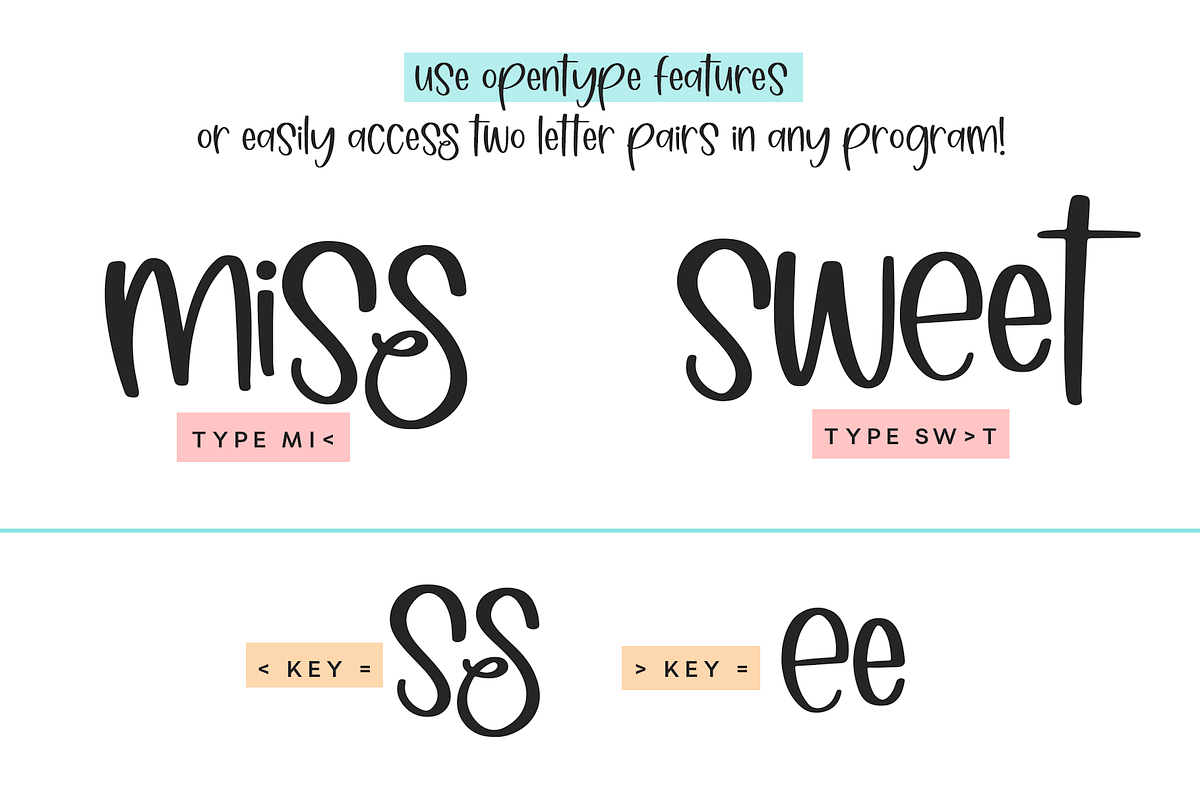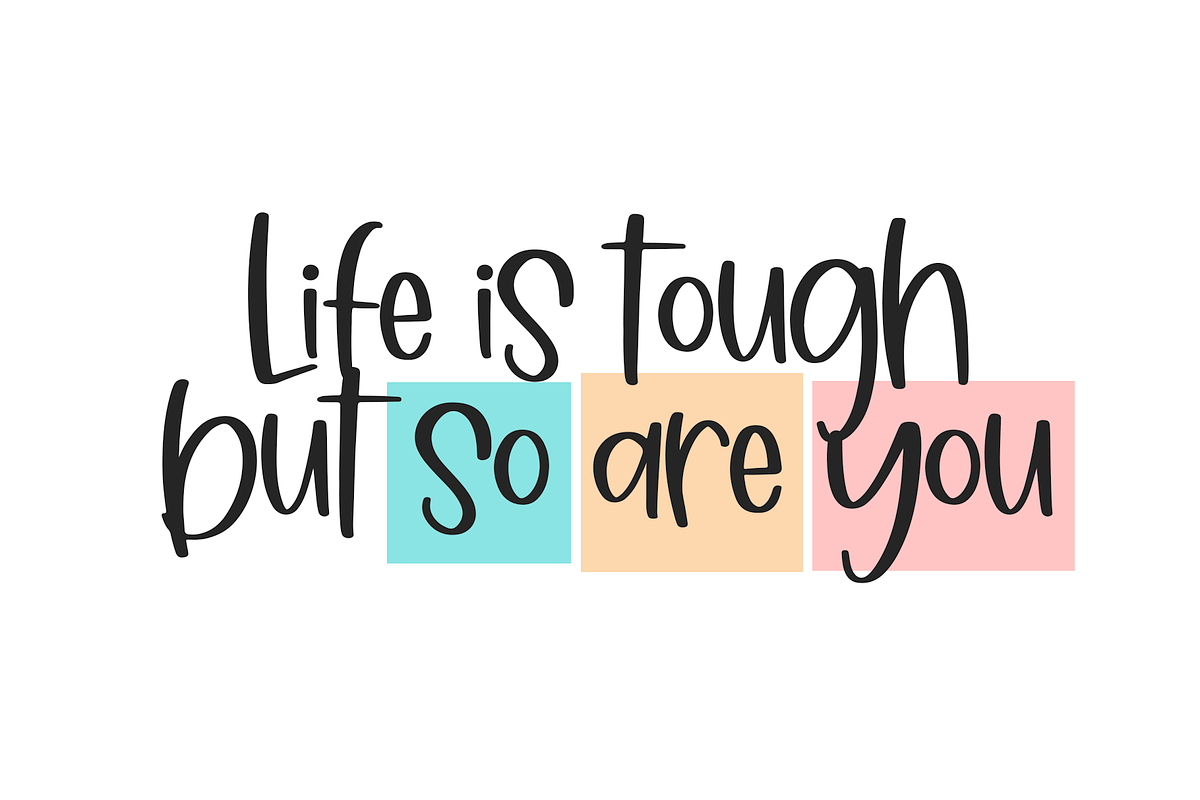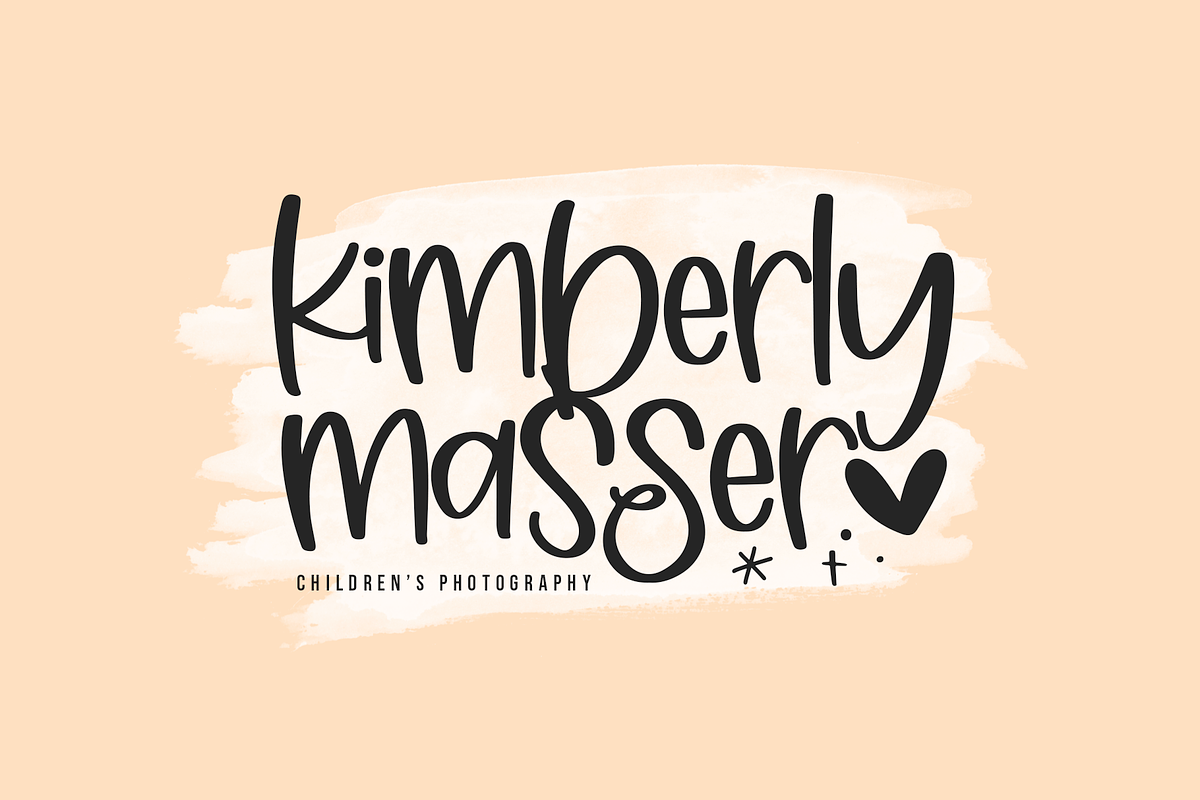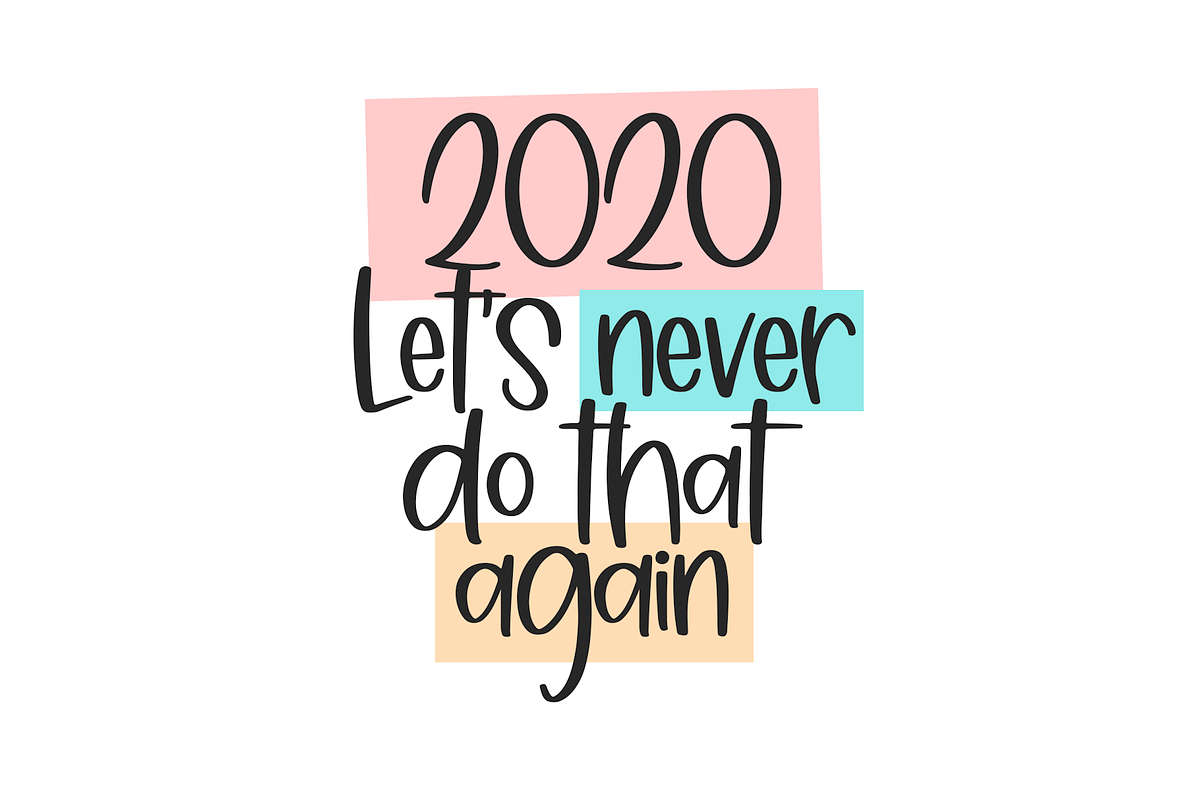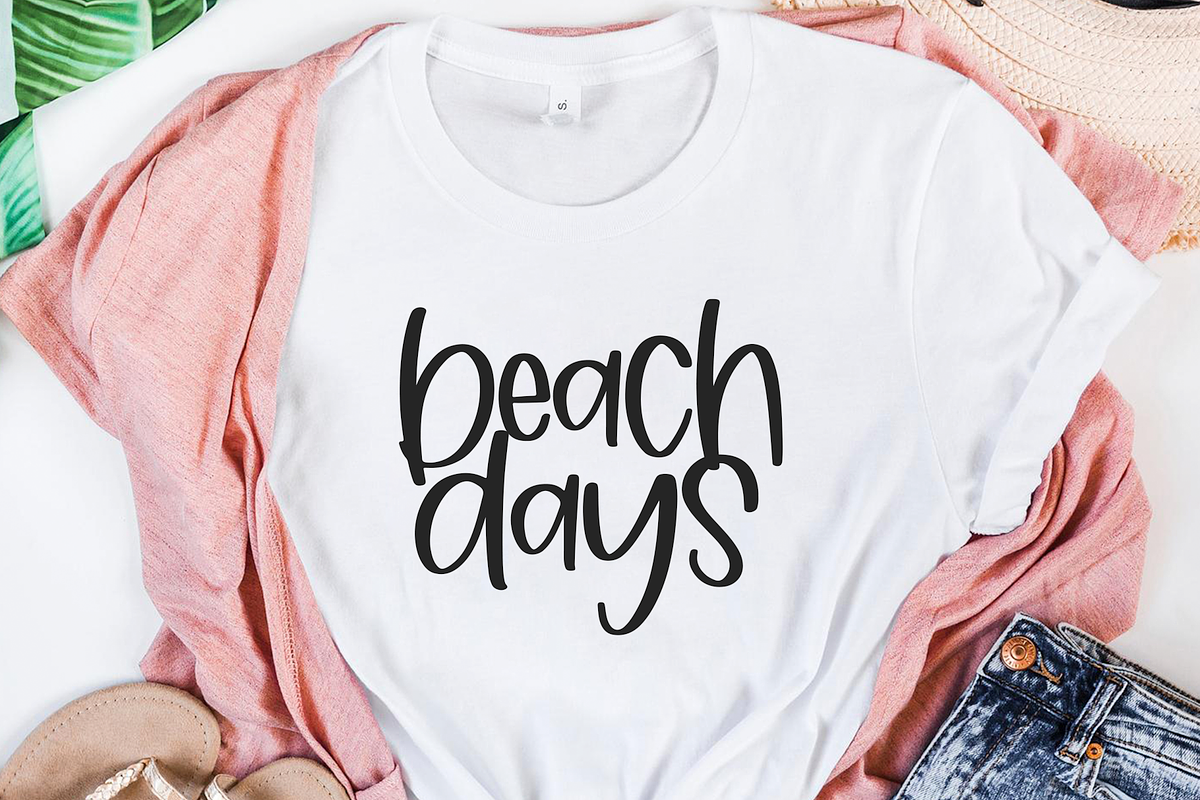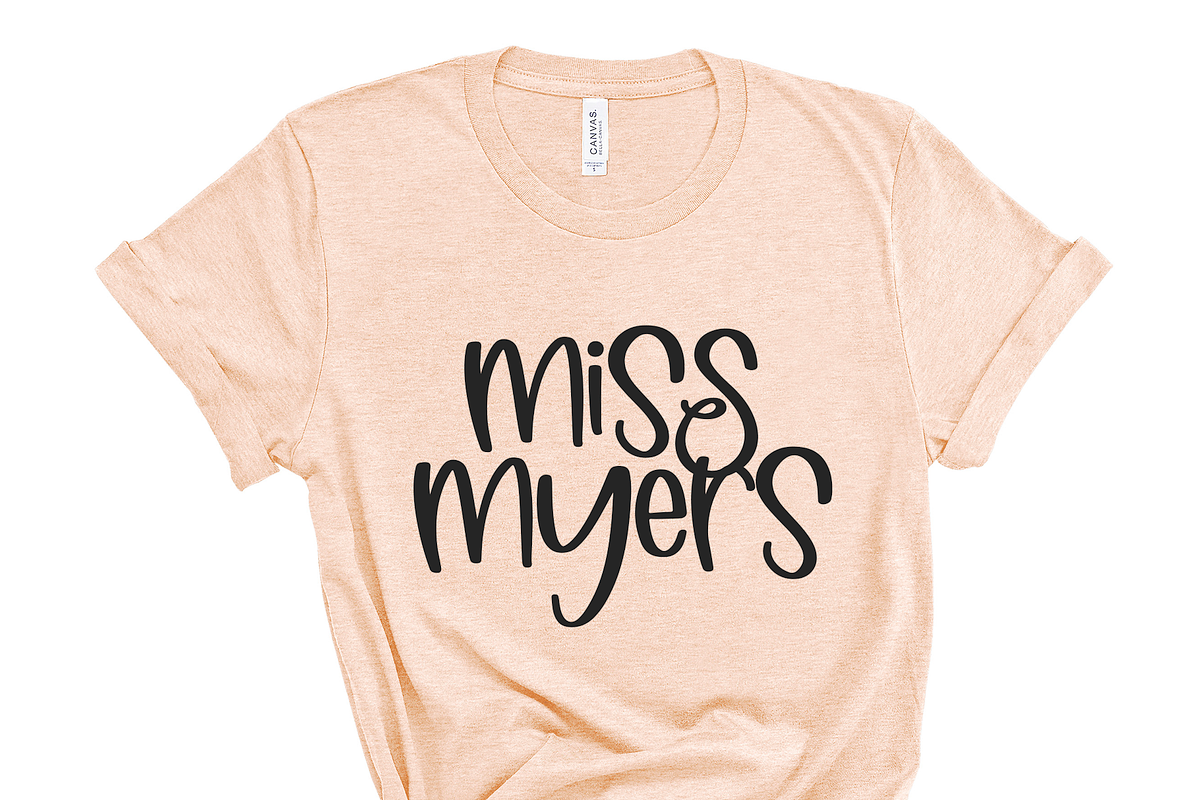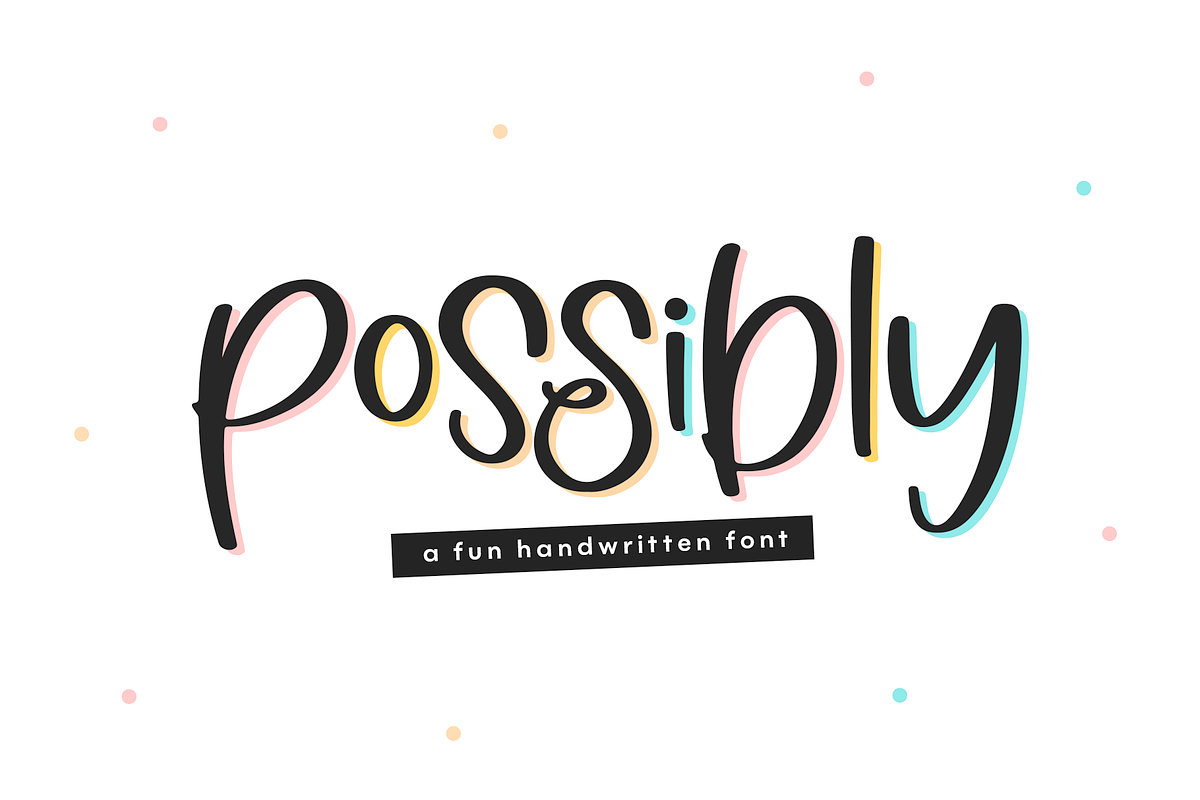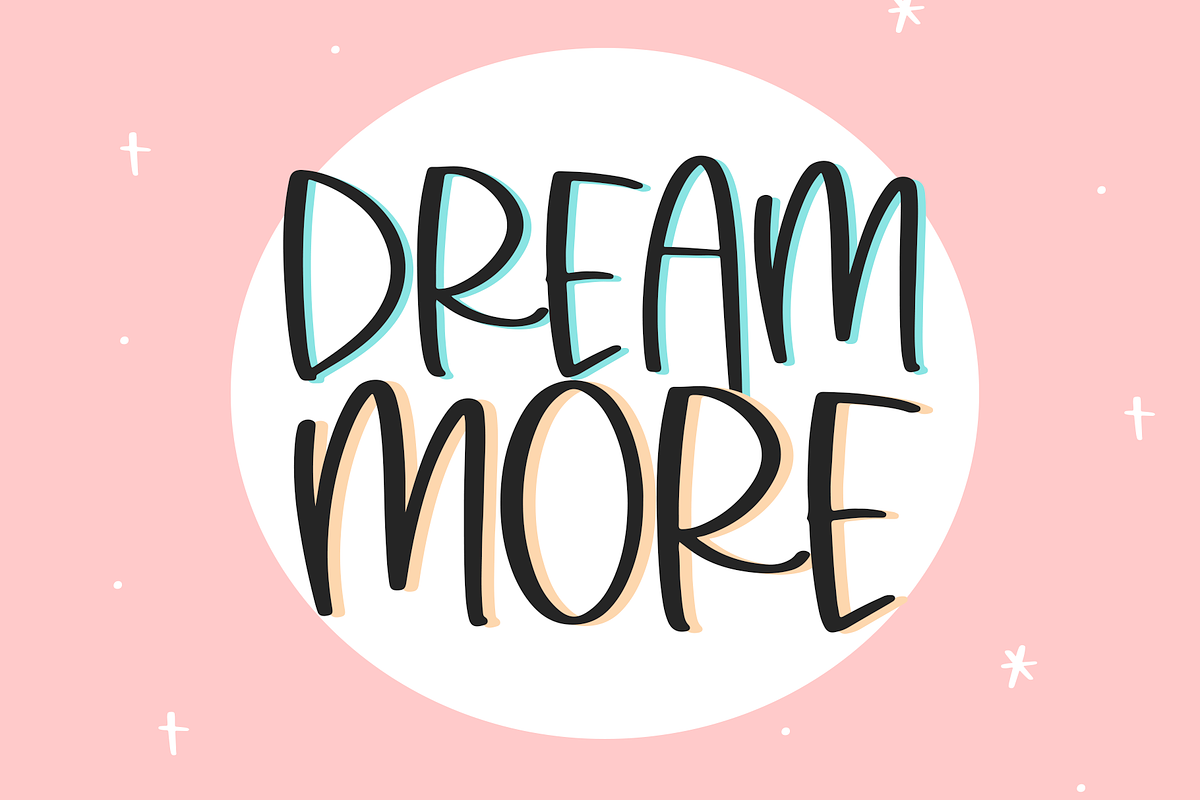
Possibly | Quirky Handwritten Font
Possibly is a quirky + fun handwritten font!
This font is perfect for all of your craft projects, shirts, logos, stickers and more!